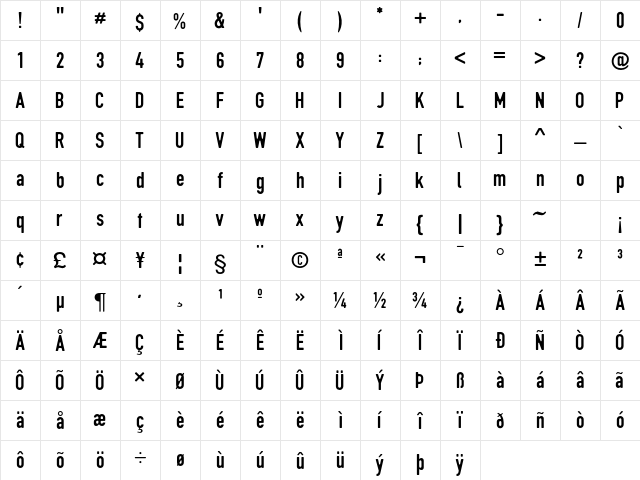
DIN Rundschrift Eng
Design Context for DIN Rundschrift Typeface
DIN Rundschrift takes a measured approach to typography — its balanced proportions and neutral character make it a reliable workhorse for both digital and print work.